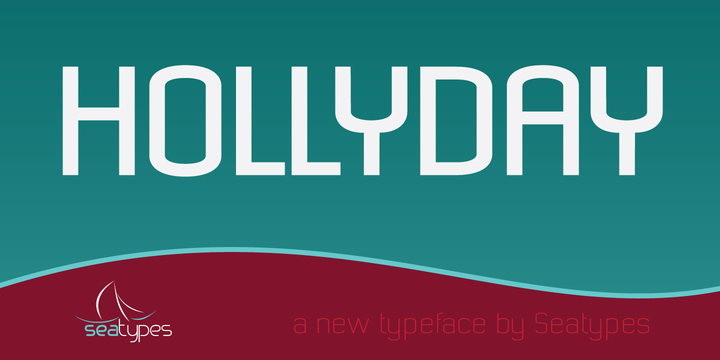
Hollyday
by Sea Types
Hollyday is designed to be practical and use of texts and titles. Ideal for application in graphics and editorial projects and mobile interface design.